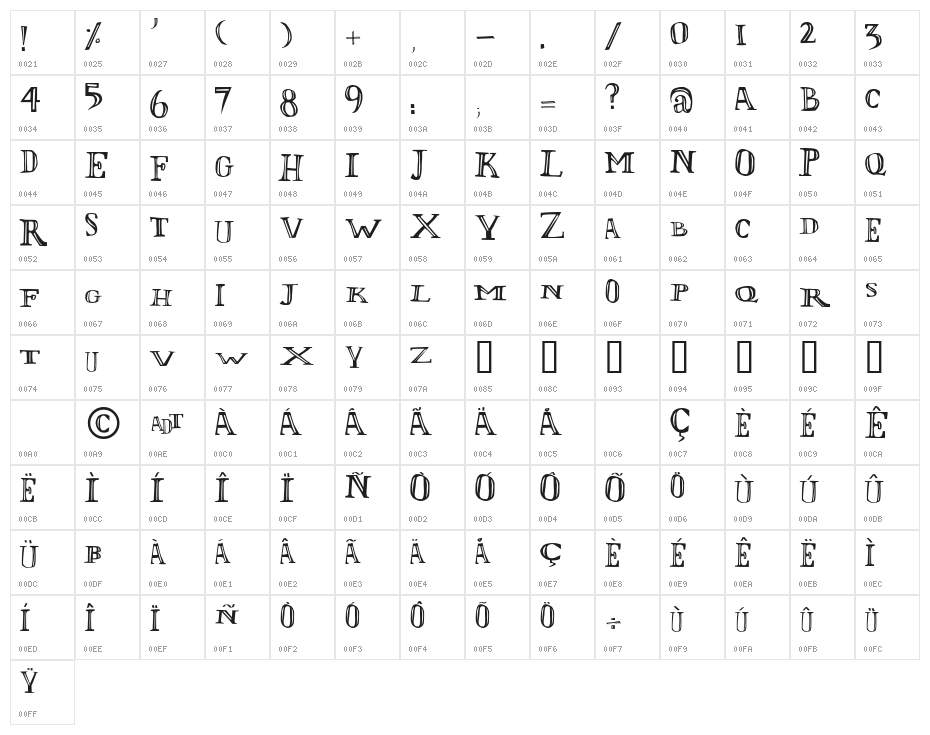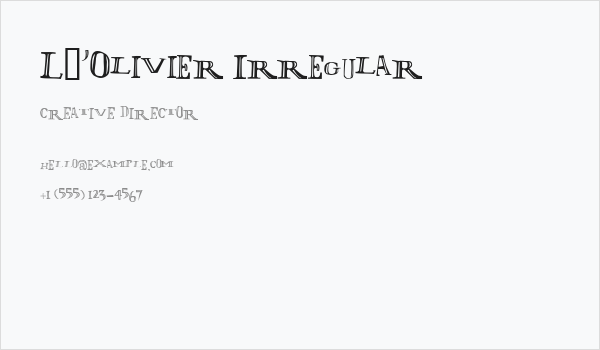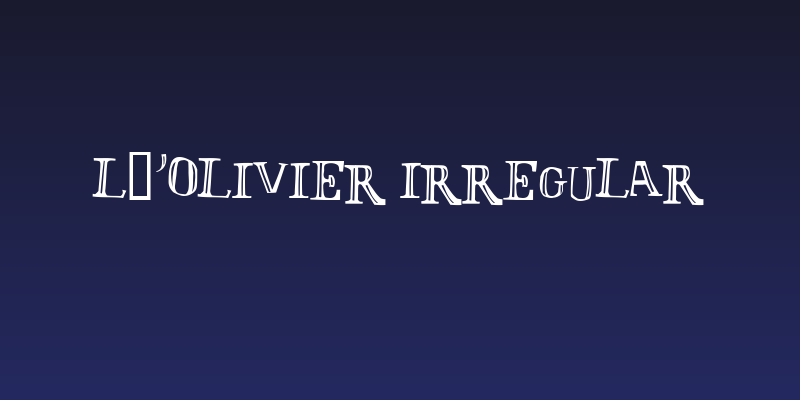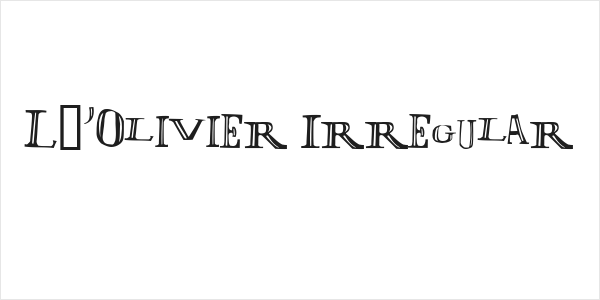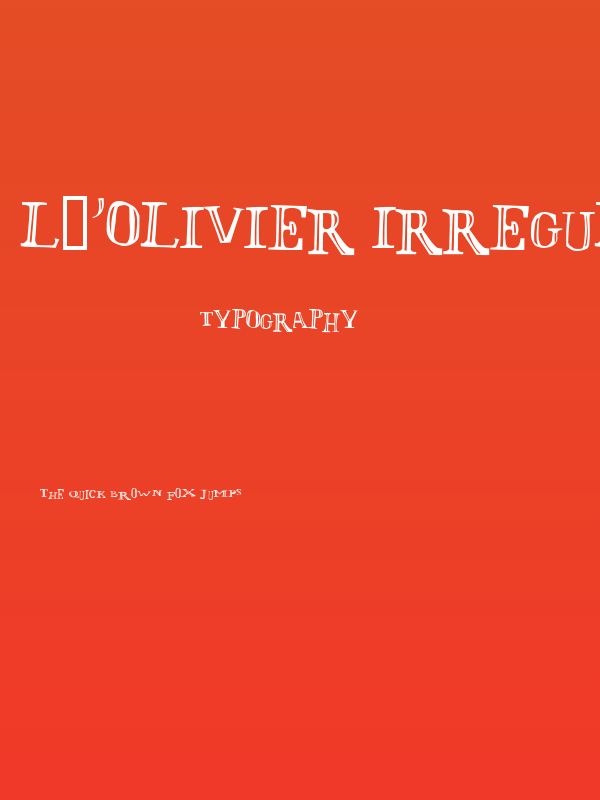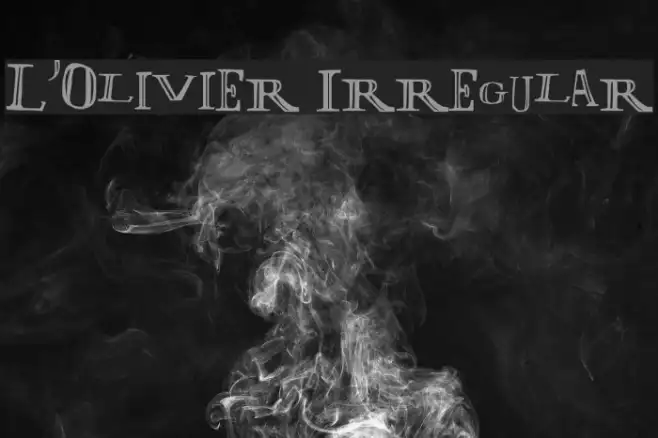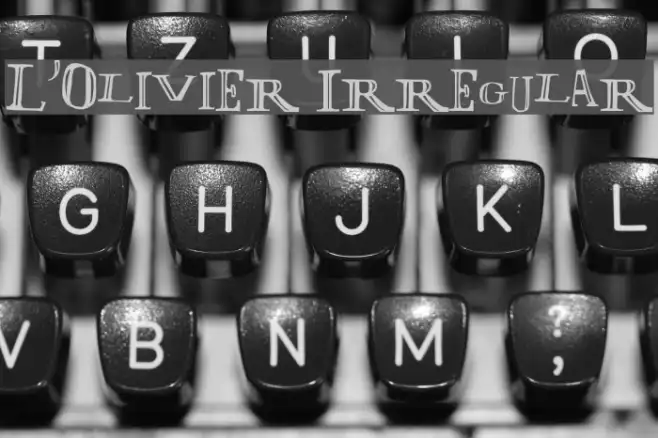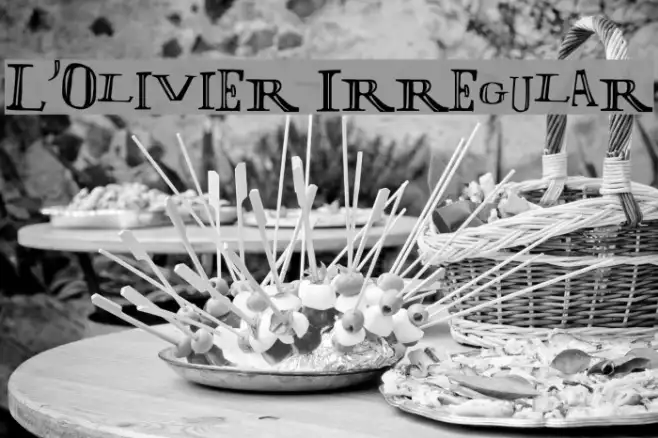
L'Olivier Irregular Font
L'Olivier Irregular Description
This font exhibits a playful and irregular style, characterized by its uneven strokes and whimsical design. The uppercase and lowercase letters share a consistent theme of quirky, hand-drawn aesthetics, with varying line thicknesses that add a dynamic and lively feel. The numerals and special characters maintain this irregularity, contributing to the font's unique charm. The overall appearance is reminiscent of a handcrafted or artistic style, making it stand out with its distinctive personality.
| Proposed Projects | Ideal for creative projects such as children's books, playful branding, artistic posters, or any design that seeks to convey a sense of fun and creativity. |